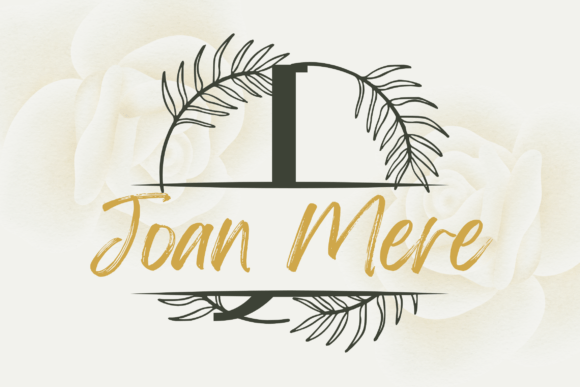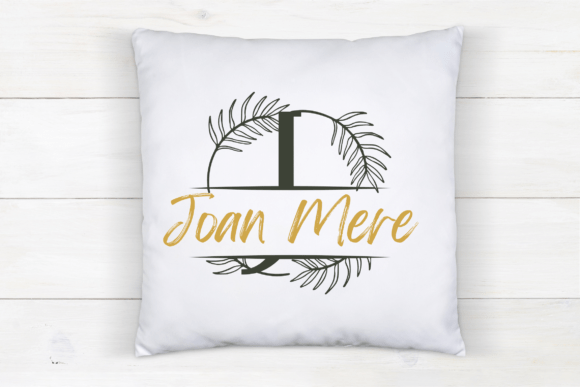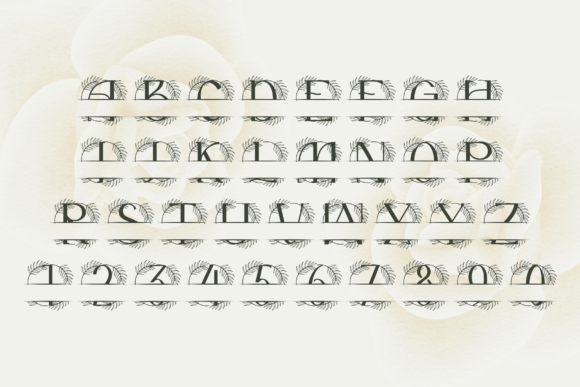
The Perfect Blend of Elegance and Functionality
Have you ever been tasked with creating a wedding invitation or event signage that exudes luxury and sophistication? You know the feeling – the pressure to impress, the desire to make a lasting impression. As a designer, you’re always on the lookout for the perfect font to elevate your project. That’s where the Crestelle Split Monogram Font comes in – a refined serif split font designed to add a touch of elegance to your work.
With its clean horizontal split and subtle botanical-inspired accents, this font is the perfect blend of luxury and creativity. The Crestelle Split Monogram Font is designed to be versatile, making it easy to customize for a variety of projects, from wedding invitations to boutique branding and packaging. Its refined serif base ensures clarity and professionalism, while the decorative elements add a gracious touch.
Crestelle Split Monogram Font Key Features
- Font Style: Script, Monogram
- Unique Characteristics: Distinctive split design, elegant and sophisticated feel, perfect for luxury branding and high-end designs
Crestelle Split Monogram Font Review
Overall, I think the Crestelle Split Monogram Font is a lovely addition to any design project. It’s perfect for adding a touch of elegance and sophistication to your branding, especially for those who want to convey a sense of luxury and high-end quality. ✨
Here are some of the things that I think work well with this font:
- Unique design: The split monogram style is unlike any other font I’ve seen, making it stand out from the crowd.
- High-quality glyphs: The font is well-crafted, with clean lines and smooth curves that make it easy to read.
- Good for luxury brands: As I mentioned earlier, this font is perfect for high-end brands that want to convey a sense of sophistication and elegance.
That being said, there are a few limitations to consider:
- Not ideal for body text: Due to its ornate design, this font is better suited for titles, headings, and other display text rather than body text.
- May be difficult to pair: The unique design of this font may make it challenging to pair with other fonts, so be sure to test it thoroughly before using it in a design project.
- Not suitable for small text: The font is best used at larger sizes, as it can become difficult to read when scaled down.
Overall, I think the Crestelle Split Monogram Font is a great choice for designers who want to add a touch of luxury and sophistication to their designs. While it may have some limitations, it’s definitely worth considering for the right project. ⚠️
The Crestelle Split Monogram Font is perfect for:
Wedding stationery and invitations
Personalized gifts and merchandise
Business cards and marketing materials